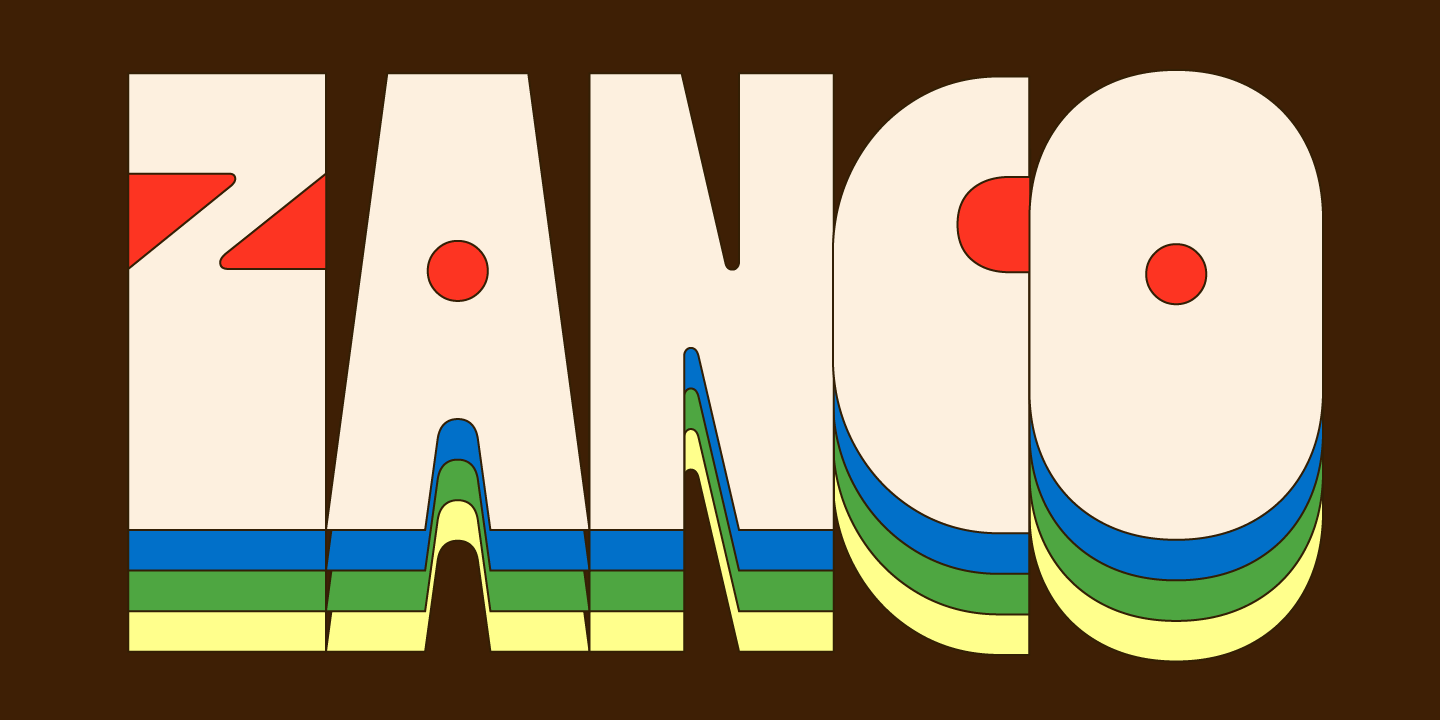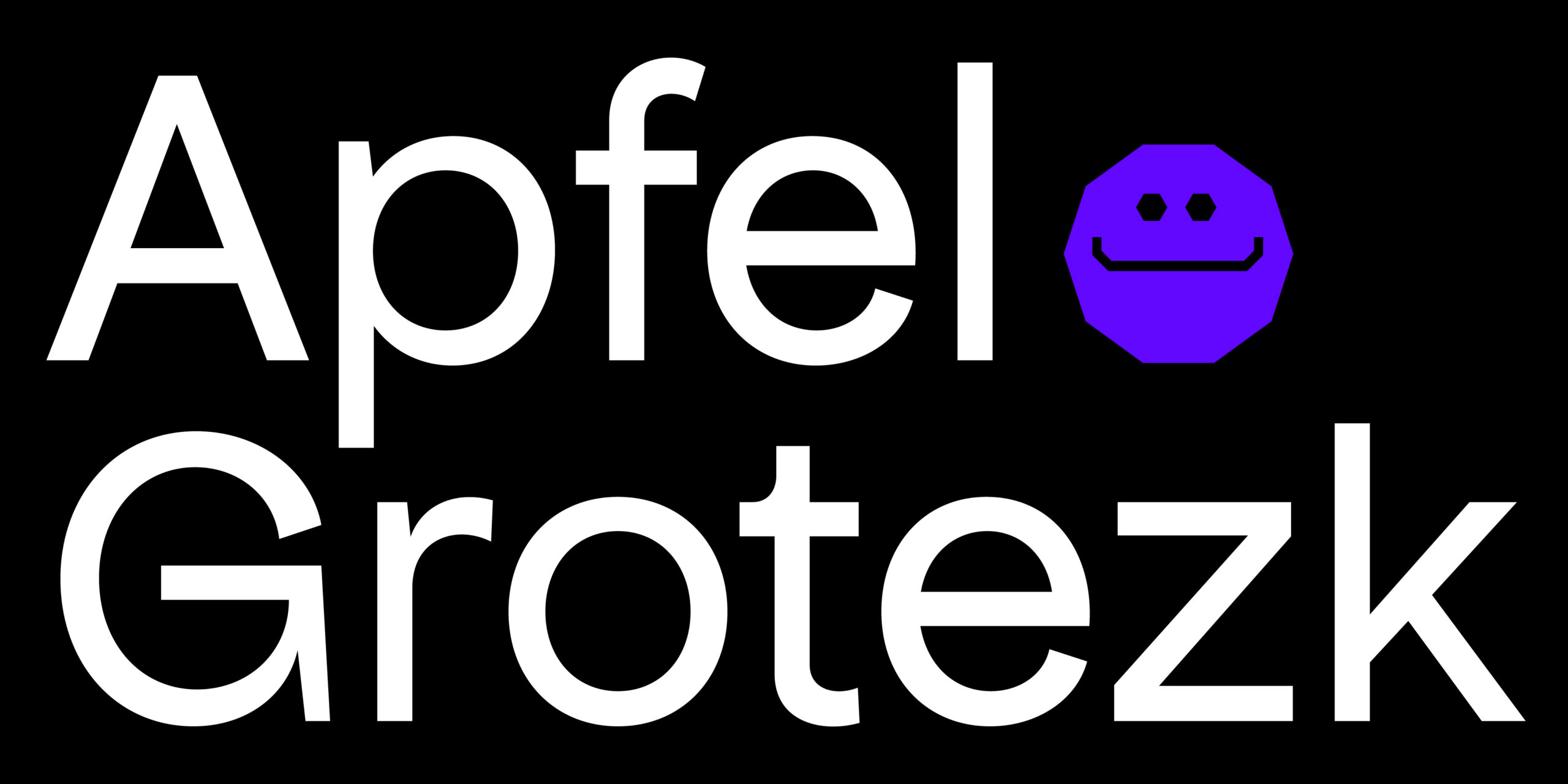
Happy new year! We sincerely hope you had a much deserved break this holiday, and that 2025 is filled with creative opportunities and growth for each one of you. Now, before we fully grasp the dynamic of January, we want to remember your favorite articles made by us in 2024, so you can check them out in case you haven’t.
We were glad to notice this was our most read article, that means that the hunger for high quality open source type foundries never stops, that’s why we’re constantly updating our list, collecting 15 type foundries so far. Creating and hosting open-source fonts is a huge sacrifice that benefits the design community, allowing designers over the world to keep creating in an accessible way, so make sure to always recognize their work, donate if you can and credit them in your projects. You can check the collection here.
The new face of Jaguar, one of the leading luxury vehicle brands of the world, had the entire internet talking, and our blog wasn’t the exception. A visual identity that lacked personality and opened a debate for a much bigger problem in the industry: mimicking. One of the biggest conversation inside the design community that happened in 2024, you can read our 2 cents here.
Besides curating our favorite free mockups all over the internet, we also make our own. We’re glad that one of our products is a favorite amongst the amazing options we have on our collection. Fun fact: this mockup was build based on a picture taken in Milan, Italy, now you know where you’re designs are being hipotetically designed. How cool is that? You can download it here.
We could never shut up about Apfel Grotesk, and apparently you couldn’t either! The favorite font from our free hub collection was designed by Luigi Gorlero for Collletttivo, an open-source foundry from Italy that we admire a lot (they´re obviously included in our open-source foundries article). You can get Apfel here.
A project that we fell in love with since the beggining. Zanco is a variable typeface that comes in several weights, each more delightful than the other. Designed by Alexander Wright and developed by Rodrigo Fuenzalida for In House International, perfect for brands that want to evoke playfulness while staying fresh and modern. You can read more about Zanco here.